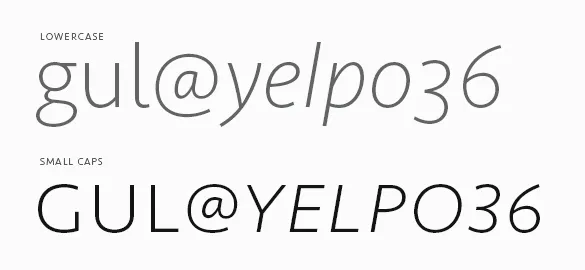
Designing Seravek
Clear functionality, near invisibility and a tone whose presence is felt most once-removed – this is the essence of Seravek. Fonts of loud volume and expressive detail have a rightful place – we’ve made many ourselves – but fonts of near silence are equally intriguing and consequently very useful for complex texts.
Building from this, Seravek is tailored to the demanding needs of information, editorial, and identity design where the twin forces of richness and clarity must co-exist. The resulting letters are unobtrusive, refined and imbued with a sense of forward modernity – essential for a diverse range of work in today’s environment.
Knowing the display of numerical data is crucial to communication, we’ve included Lining Numerals (default) as well as Old Style, Small Cap, Tabular, Tabular Old Style and Small Cap Tabular numerals for each weight of Seravek – italics included. Additionally, each of the tabular styles share the same fixed width in all 5 weights and even have their own tabular currency and math symbols. You’ll also find pre-composed fractions as well as the elements needed to set your own.
And of course, small caps. If we can do it, we’ll use small caps for just about anything but this also means we’re picky about them. As such, we’ve designed an entire set of punctuation for the small caps when All Small Caps (an OpenType feature) is activated by the user. So, never again will your small cap apostrophes float away untethered.